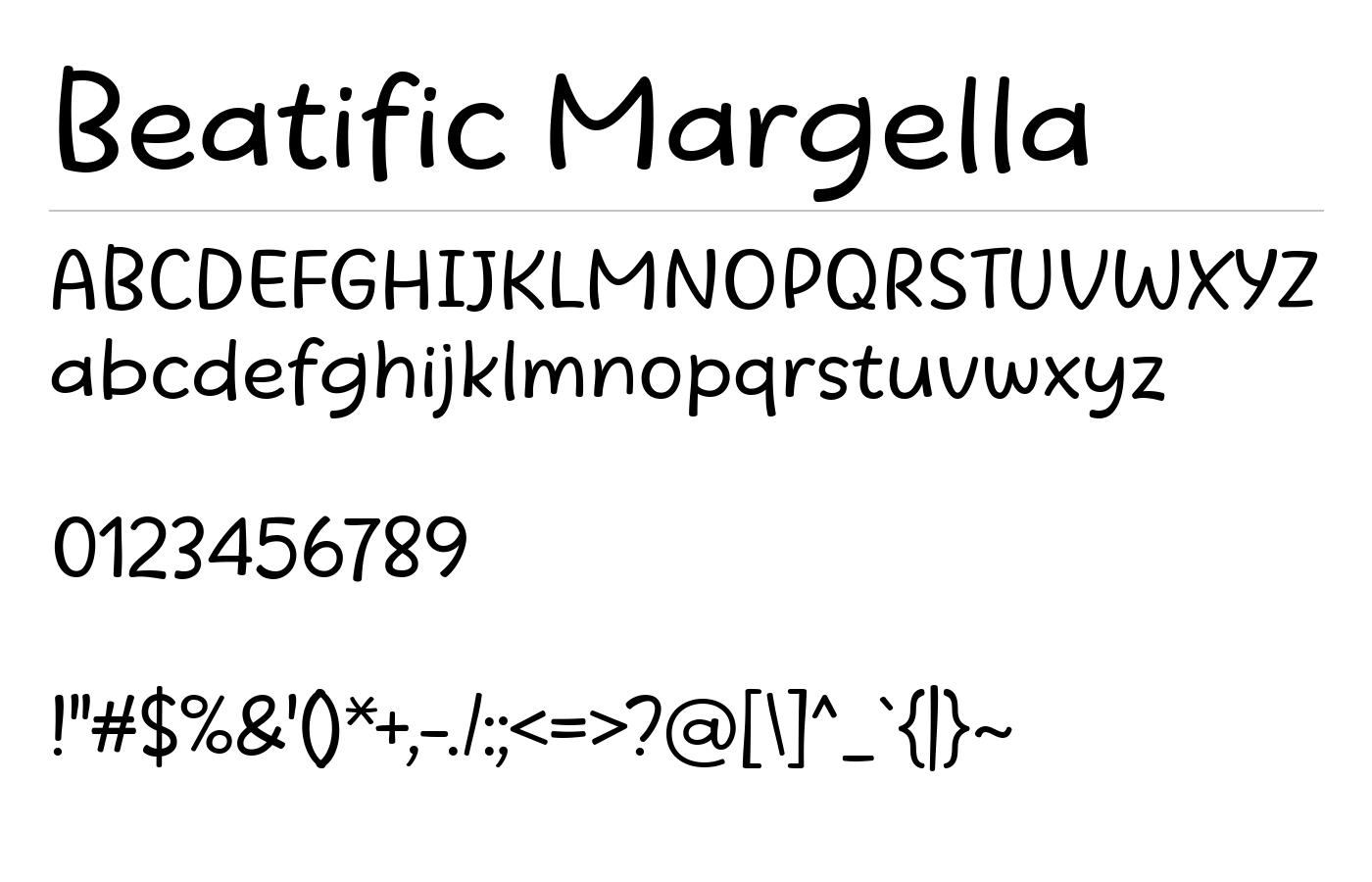
Beatific Margella is a playful and friendly sans serif font with a casual handwritten feel. Its clean, rounded letterforms and moderate x-height make it highly readable, while its slightly irregular strokes add charm and personality, perfect for informal and approachable branding. This font works well for children's books, creative projects, and any design seeking warmth and cheerfulness.
Beatific Margella Font
About Beatific Margella Font
| Font family | Beatific Margella Font |
| Designer | Situjuh Nazara |